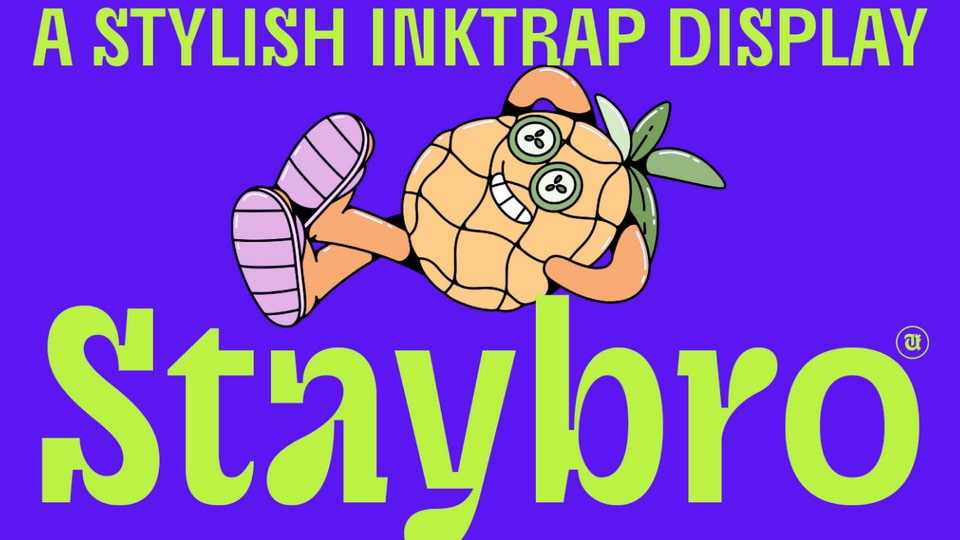
Download UT Staybro font, a display typeface that balances chunky, heavy strokes with geometric precision and smooth rounded details—a mix that radiates both strength and approachability.